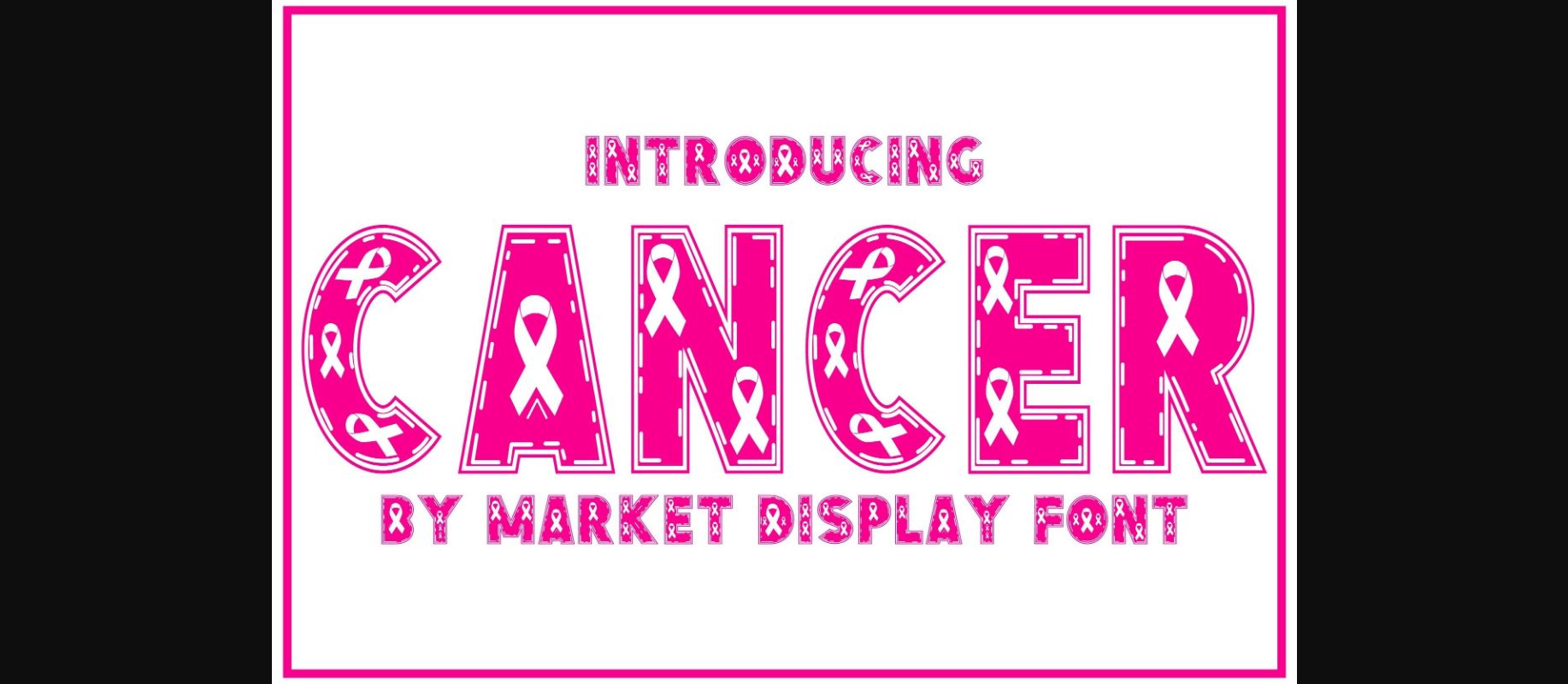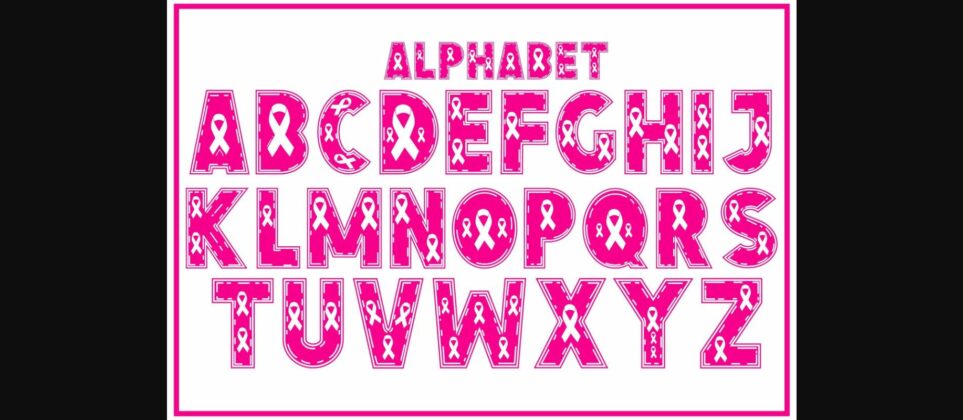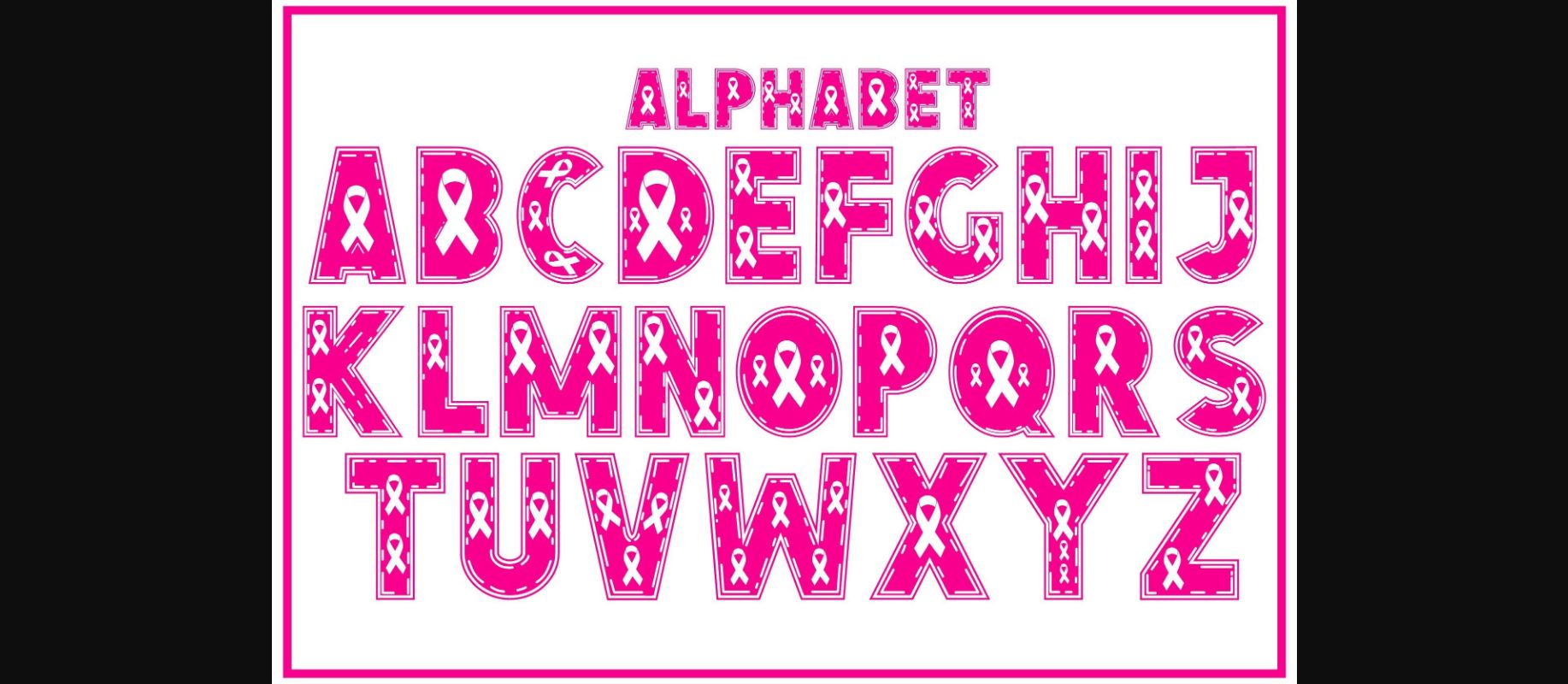
About Cancer Font
Cancer is a thick-lettered and unique decorative font. It is perfectly suitable for any breast cancer awareness-related project or crafty idea!